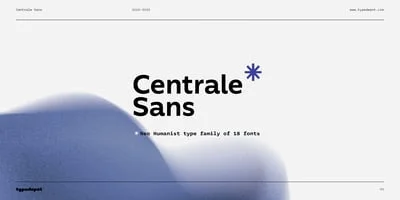
Centrale Sans Font
Centrale Sans Font is ideal for corporate branding, professional presentations, annual reports, financial documents, business communications, architectural signage, and modern web design. This versatile typeface delivers exceptional performance in both digital and print environments.
Centrale Sans Font is exciting because it masterfully balances geometric precision with humanist warmth, creating a typeface that feels both authoritative and approachable. Its carefully crafted letterforms ensure optimal readability while maintaining a distinctive and professional appearance.
The Centrale Sans Font family includes an extensive range of weights from Thin to Black, complete with matching italic styles for each weight. This comprehensive collection also features condensed and extended variations, providing maximum design flexibility for complex projects.
Centrale Sans Font provides access to a meticulously designed sans-serif typeface that exemplifies contemporary typography excellence. This sophisticated font combines clean geometric structure with subtle humanist characteristics, resulting in letterforms that are both technically precise and visually engaging. The typeface features optimal character spacing and proportions that ensure exceptional legibility across all sizes and applications. Its neutral yet distinctive personality makes it suitable for a wide range of professional contexts, from corporate identity systems to editorial design. Centrale Sans Font maintains consistent performance across different media platforms, making it an excellent choice for multi-channel brand communications. The font's clean lines and balanced proportions create a sense of reliability and modern sophistication while remaining highly functional for extensive text applications.